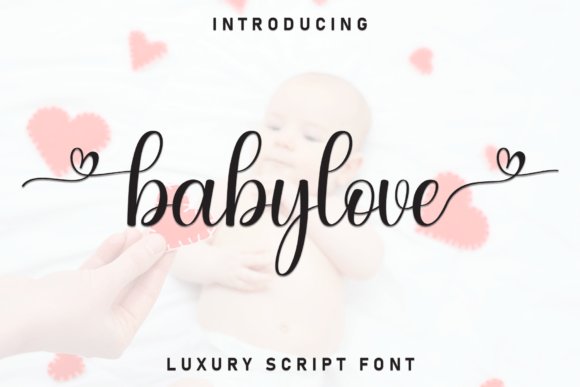
The Birth of a Timeless Masterpiece: Babylove Font
Do you remember the moment when your creative juices started flowing, and your imagination took over? Maybe it was a burst of inspiration while working on a new project, or perhaps it was the excitement of planning a special occasion and wanting to make it truly unforgettable. Whatever the spark, it’s a feeling that’s hard to replicate, but what if you could bottle it and infuse it into your designs?
Enter Babylove Font, a captivating display font that embodies the essence of creativity and joy. This handcrafted masterpiece is designed to bring a touch of whimsy and charm to your artistic pursuits, making it perfect for classy wedding invitations, emotive personalized cards, and any other project that needs a dash of vibrancy. For designers, Babylove Font is a valuable tool that can breathe life into your creations and make them truly flourish.
Babylove Font Key Features
- Unique Characteristics: Whimsical, cursive script with decorative flourishes and a playful feel
Designer Review: Babylove Font
Overall, I found the Babylove Font to be a cute and playful addition to any design project. It’s perfect for projects that require a soft, whimsical touch.
- ✨ The font’s rounded edges and gentle curves give it a childlike charm that’s hard to resist.
- ✨ The font is highly legible, even at smaller font sizes, making it a great choice for body text.
- ✨ The font comes in a range of weights and styles, including italic and bold, giving designers plenty of options for customization.
- ⚠️ The font may not be suitable for formal or professional projects, as its playful nature may come across as unprofessional.
- ⚠️ The font’s rounded edges may make it difficult to read at very small font sizes or in low-light conditions.
- ⚠️ Some designers may find the font too cutesy or over-the-top, which may not be to their taste.
In conclusion, the Babylove Font is a great choice for designers who want to add a touch of whimsy to their projects. While it may not be suitable for every project, it’s a fun and playful font that’s sure to bring a smile to your viewers’ faces.
Tips for Getting the Most Out of Babylove Font
For optimal results, use the Babylove Font in conjunction with pastel colors and soft textures.
Experiment with different font sizes and styles to create a unique and eye-catching design.
The Babylove Font is ideal for:
- Baby shower invitations and decorations.
- Children’s product branding and packaging.
- Infant and toddler-themed marketing materials.
Alternatives to Babylove Font for Designers
The Babylove Font is a popular script font known for its soft, elegant, and feminine appearance. If you’re looking for alternatives, here are a few options to consider:
The Great Vibes Font is a beautiful, modern script font designed by Handmade Typographie. It features a flowing, handwritten feel with a touch of elegance. Use it for wedding invitations, greeting cards, or any design project that requires a soft, romantic touch. Great Vibes Font is similar to Babylove Font in its elegant and feminine appearance, but it has a more modern and sophisticated feel.
The Carolyna Pro Font is a stylish, modern script font designed by Carolyna Rodriguez. It features a flowing, handwritten feel with a touch of sophistication. Use it for branding, advertising, or any design project that requires a modern and elegant look. Carolyna Pro Font is similar to Babylove Font in its elegant and feminine appearance, but it has a more modern and versatile feel.
The Ostrich Sans Font is a modern sans-serif font designed by Vernon Adams. It features a clean, minimalist design with a touch of elegance. Use it for branding, advertising, or any design project that requires a clean and modern look. Ostrich Sans Font is different from Babylove Font in its sans-serif design, but it has a similar elegant and sophisticated feel.